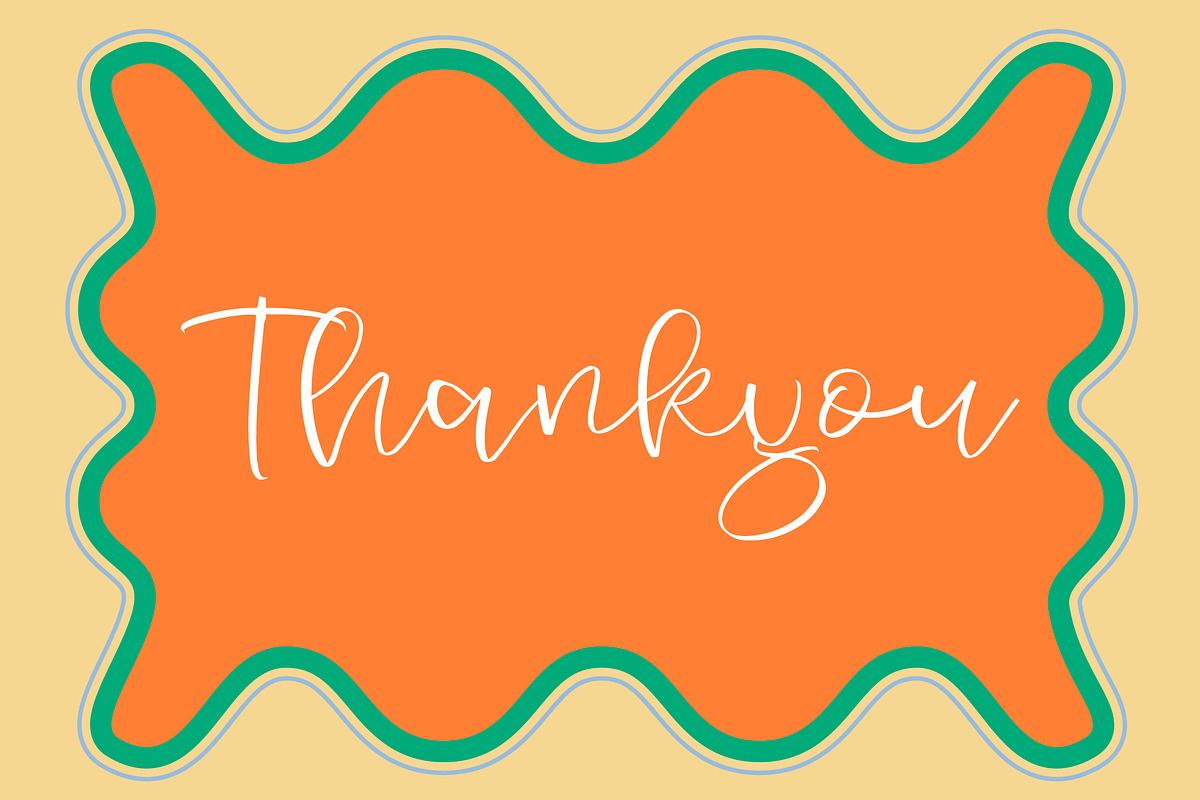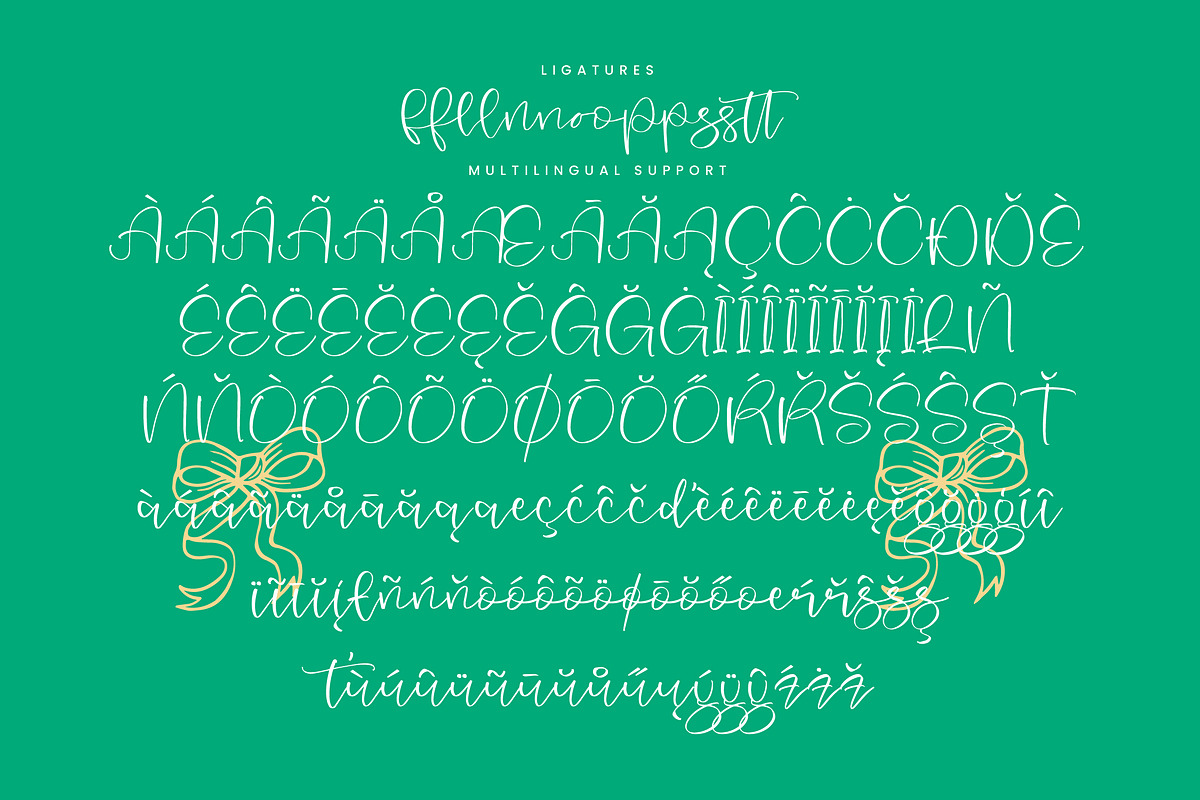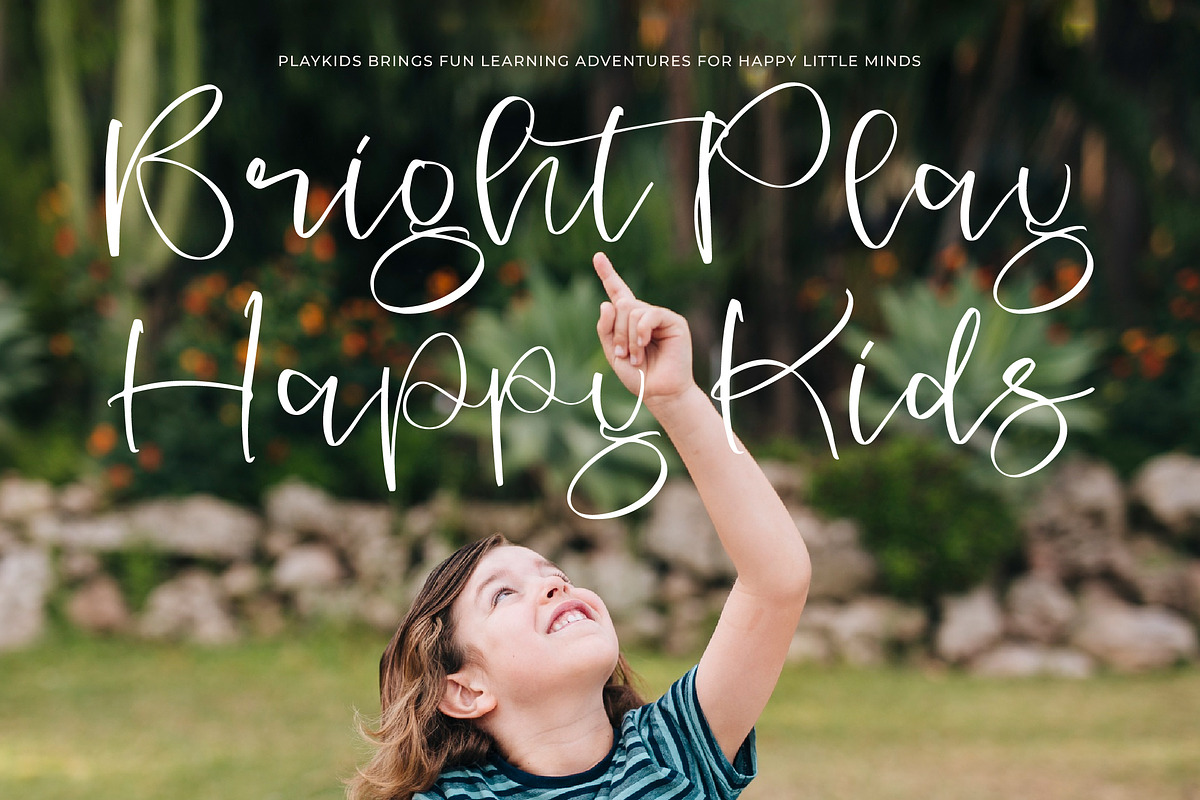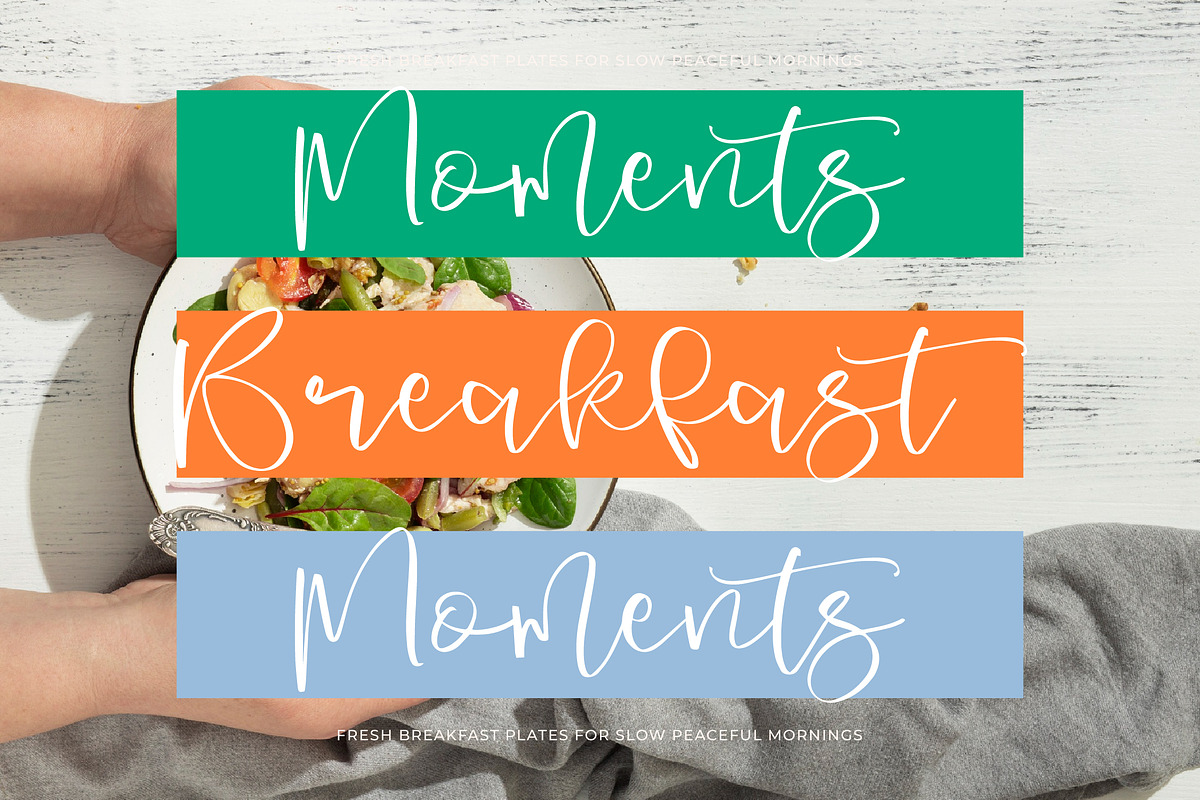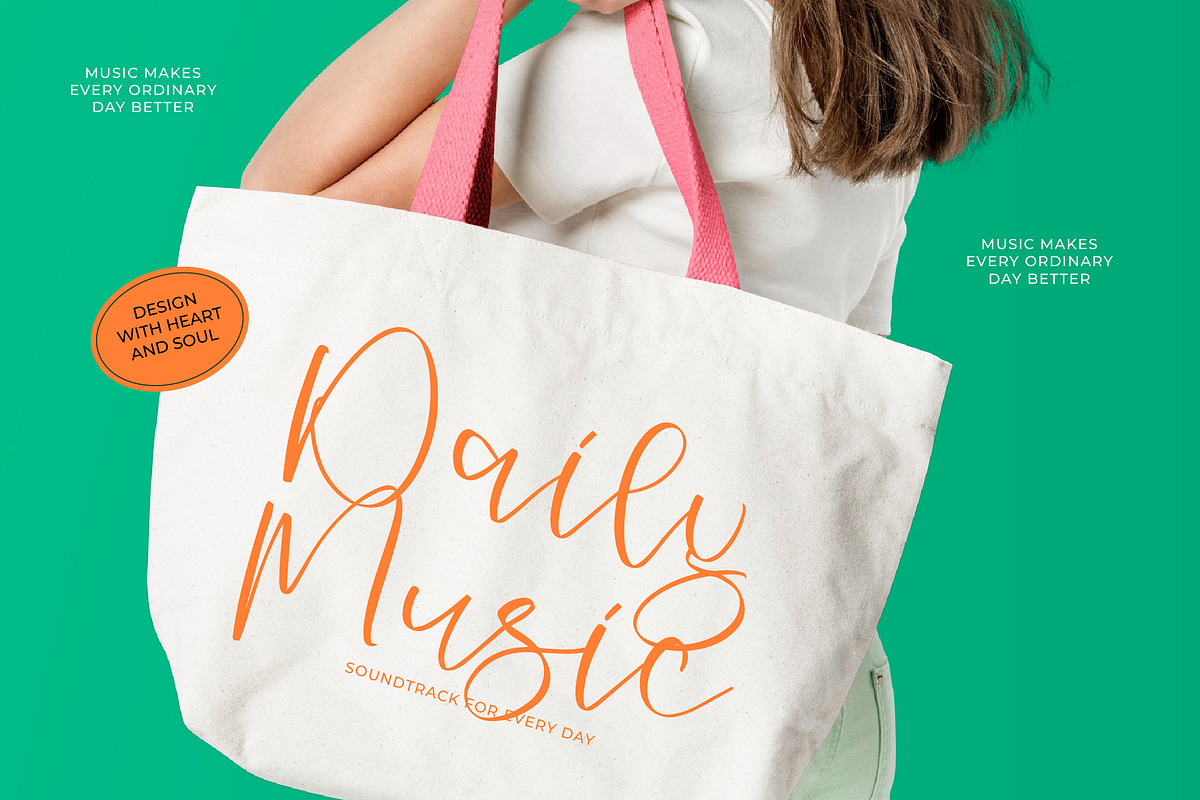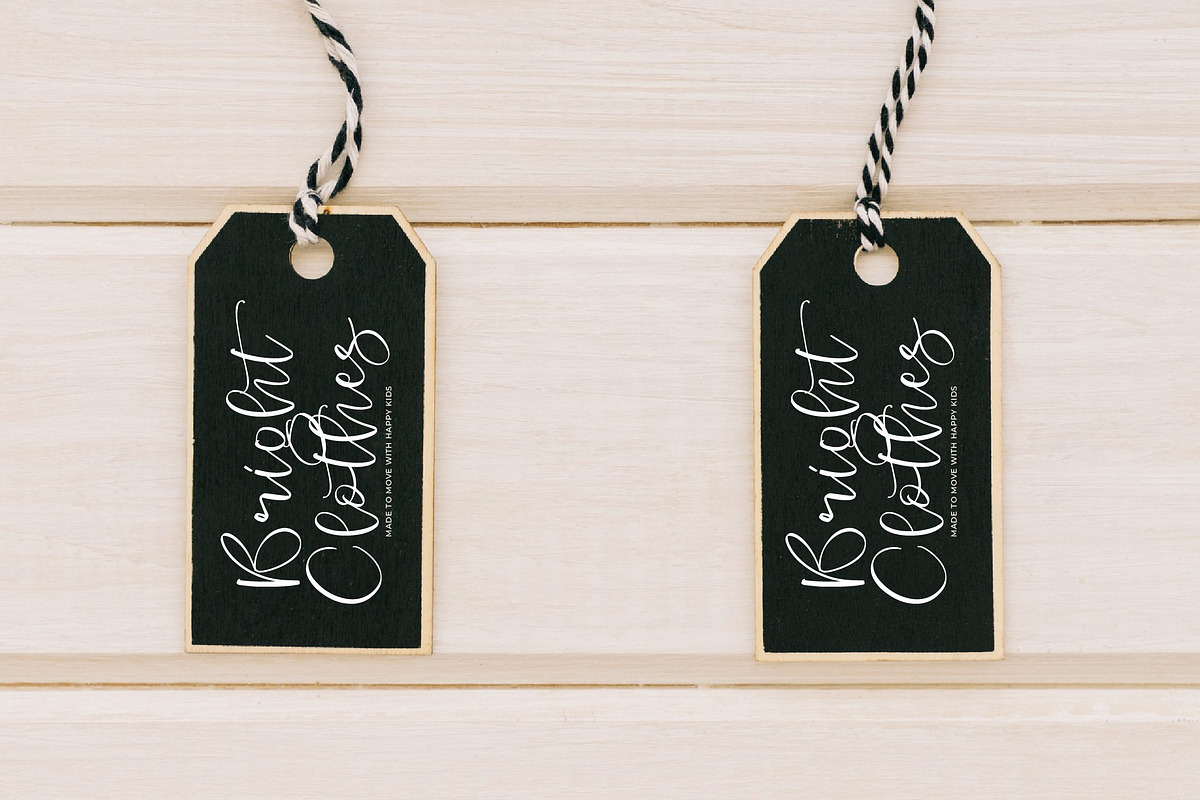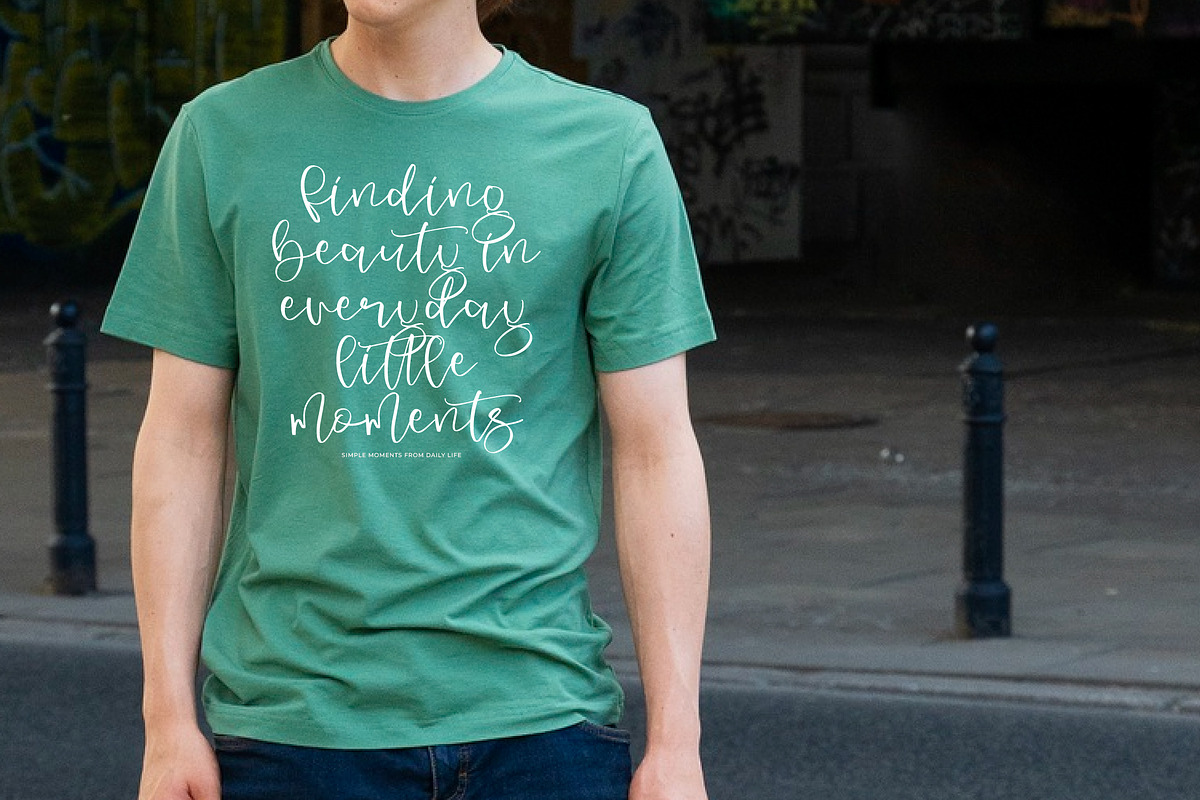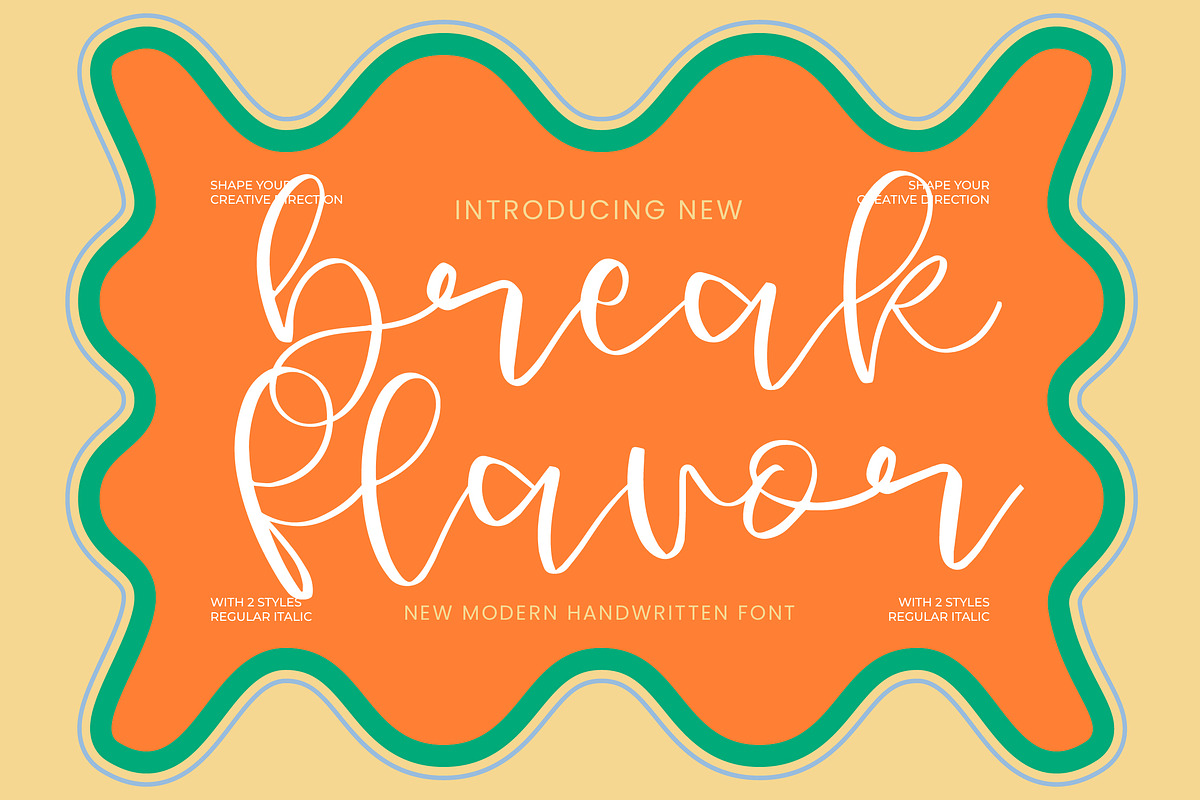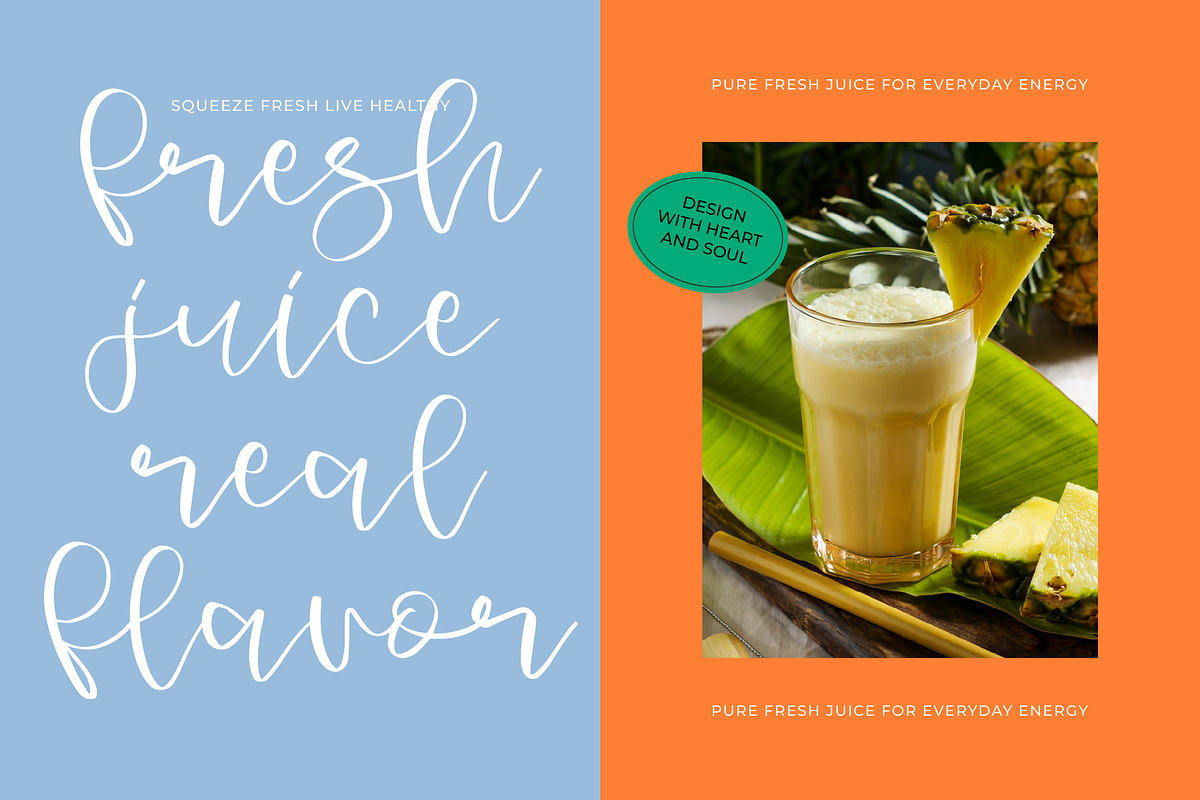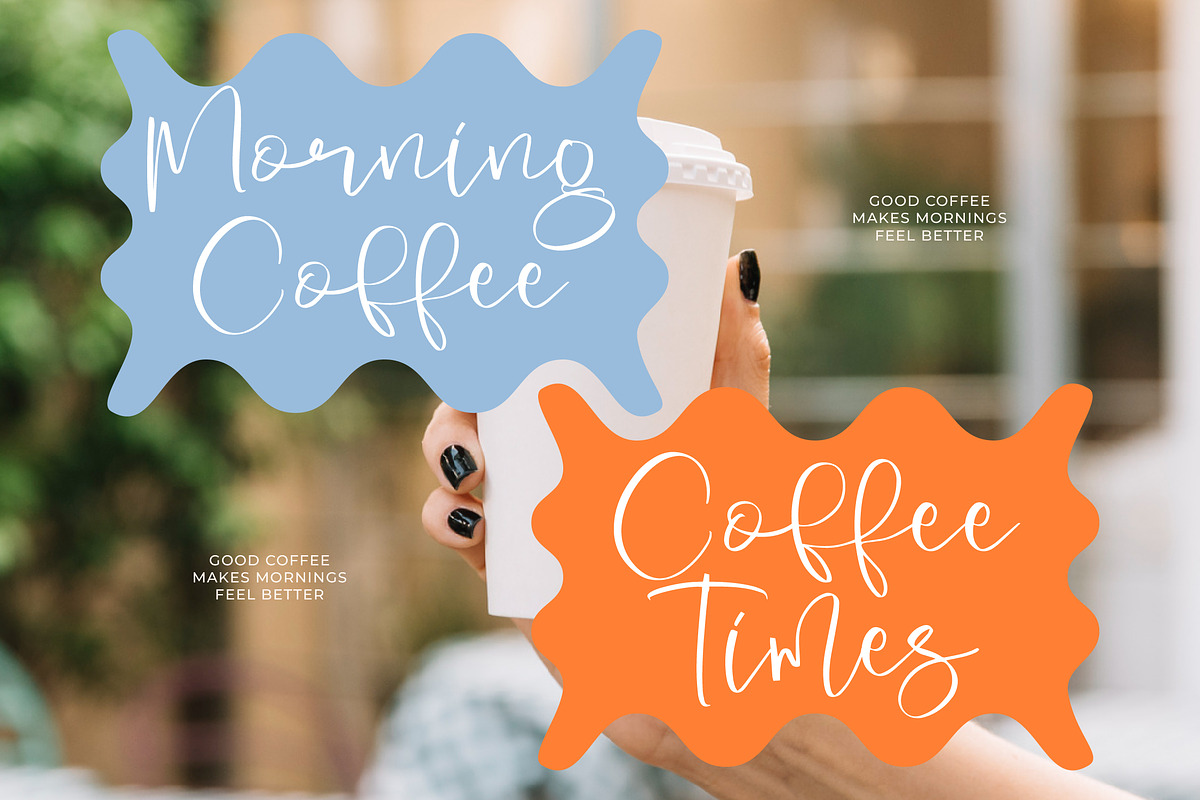
Break Flavor Modern Handwritten
Break Flavor – Modern Handwritten
Break Flavor is a modern handwritten font from Integritype Studio with a bold, fresh, and expressive personality. Designed to reflect casual confidence and contemporary style, this font is perfect for energetic and creative design projects.
Perfect for projects such as: logos, branding projects, product packaging, posters, quotes, apparel designs, t-shirts, shopping bags, book covers, business cards, social media graphics, labels, advertising, lifestyle branding, and modern creative projects.